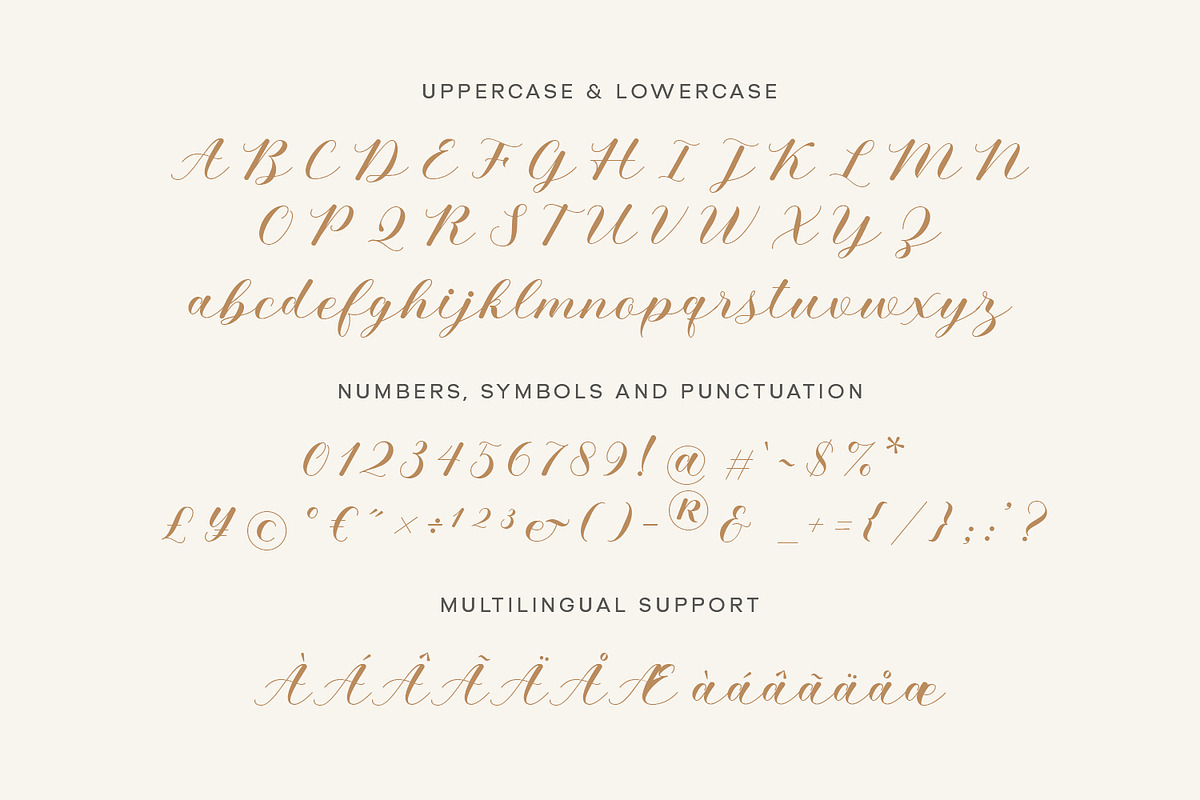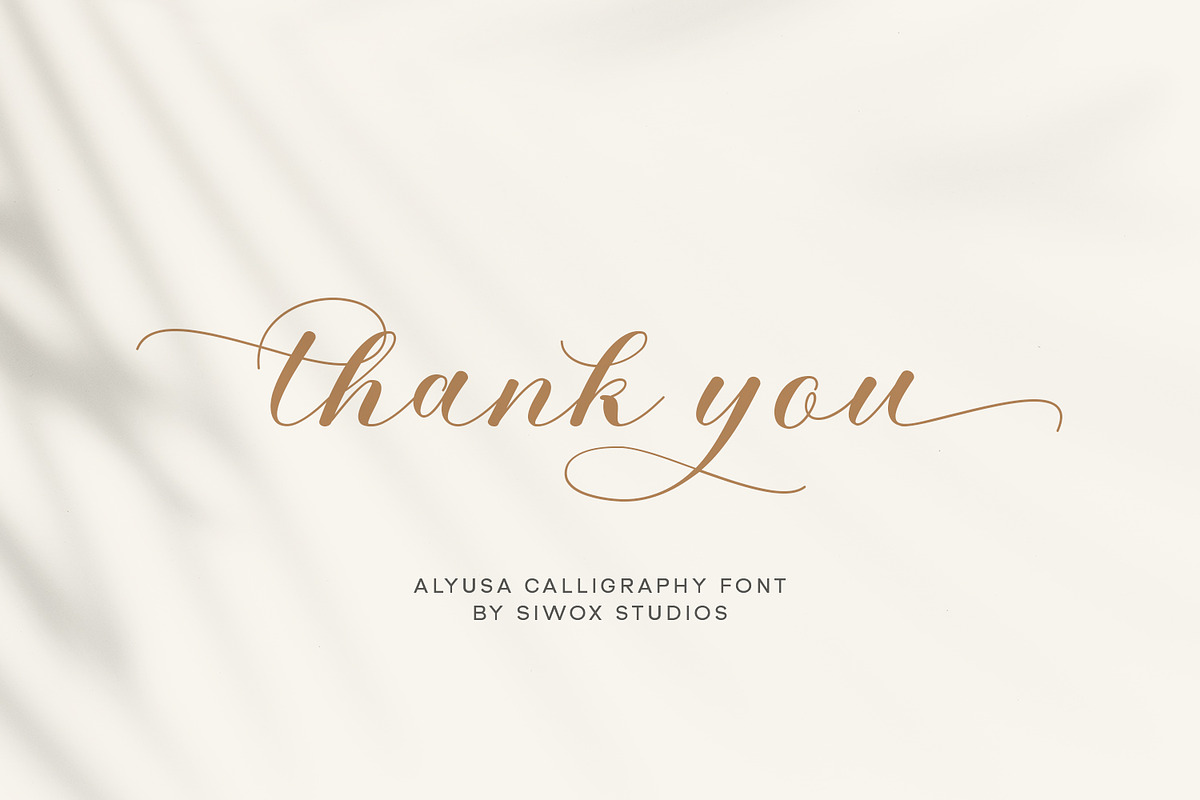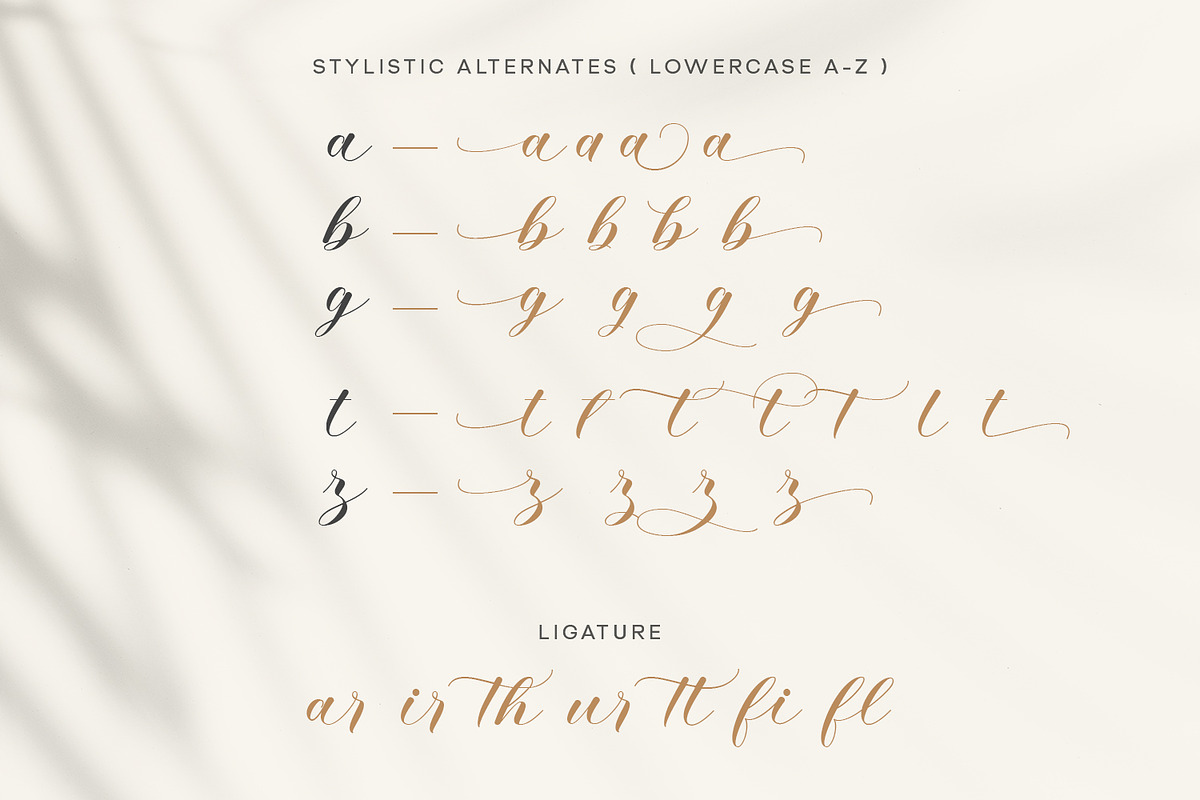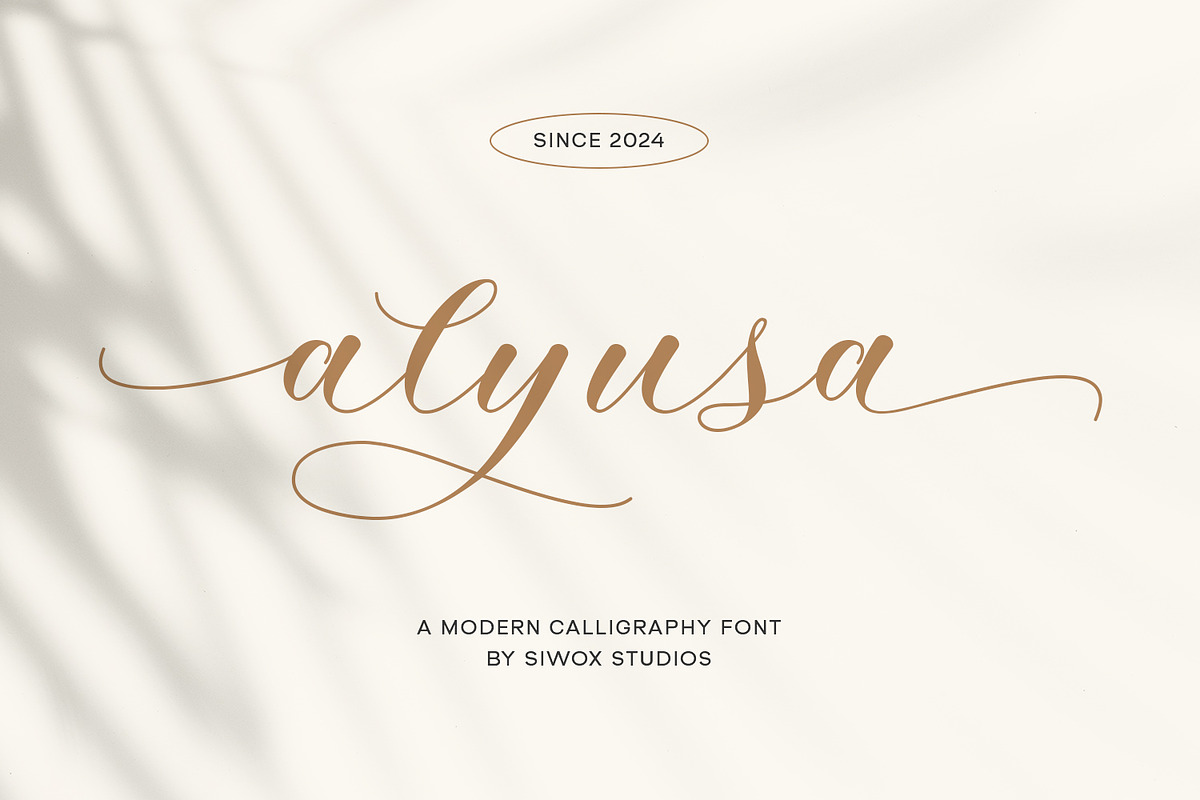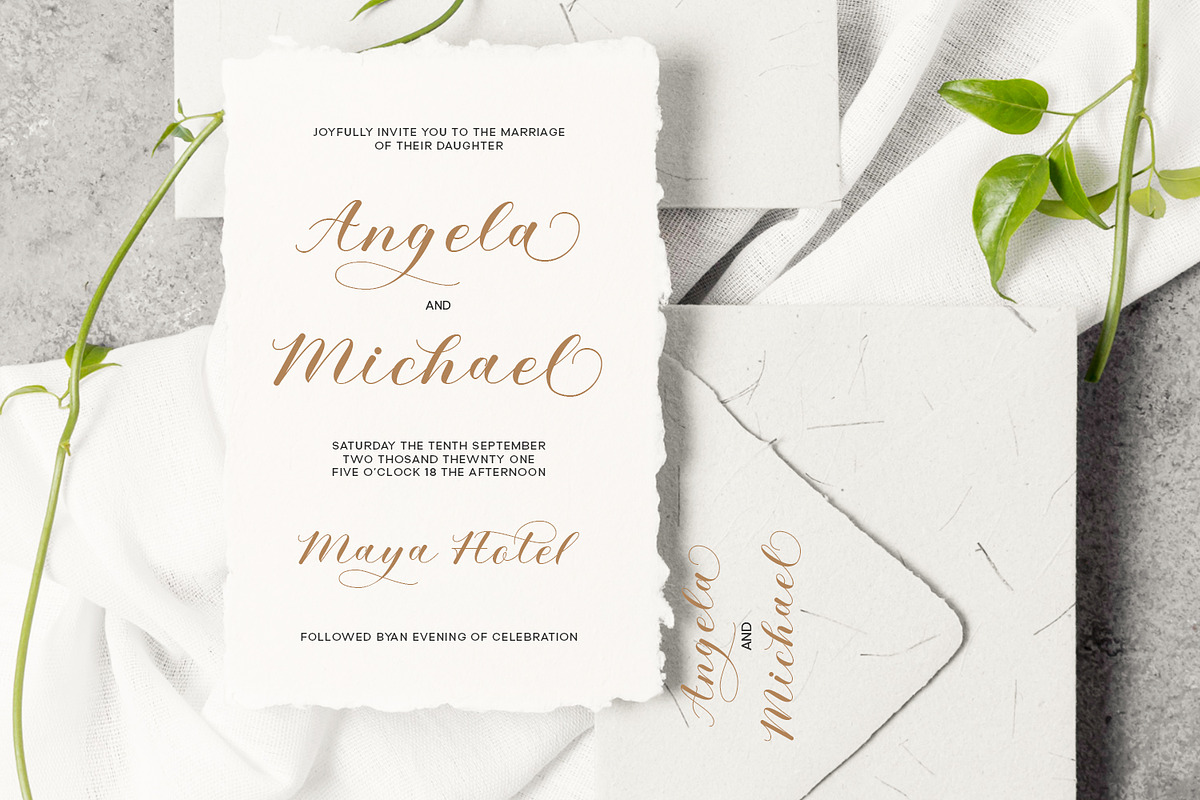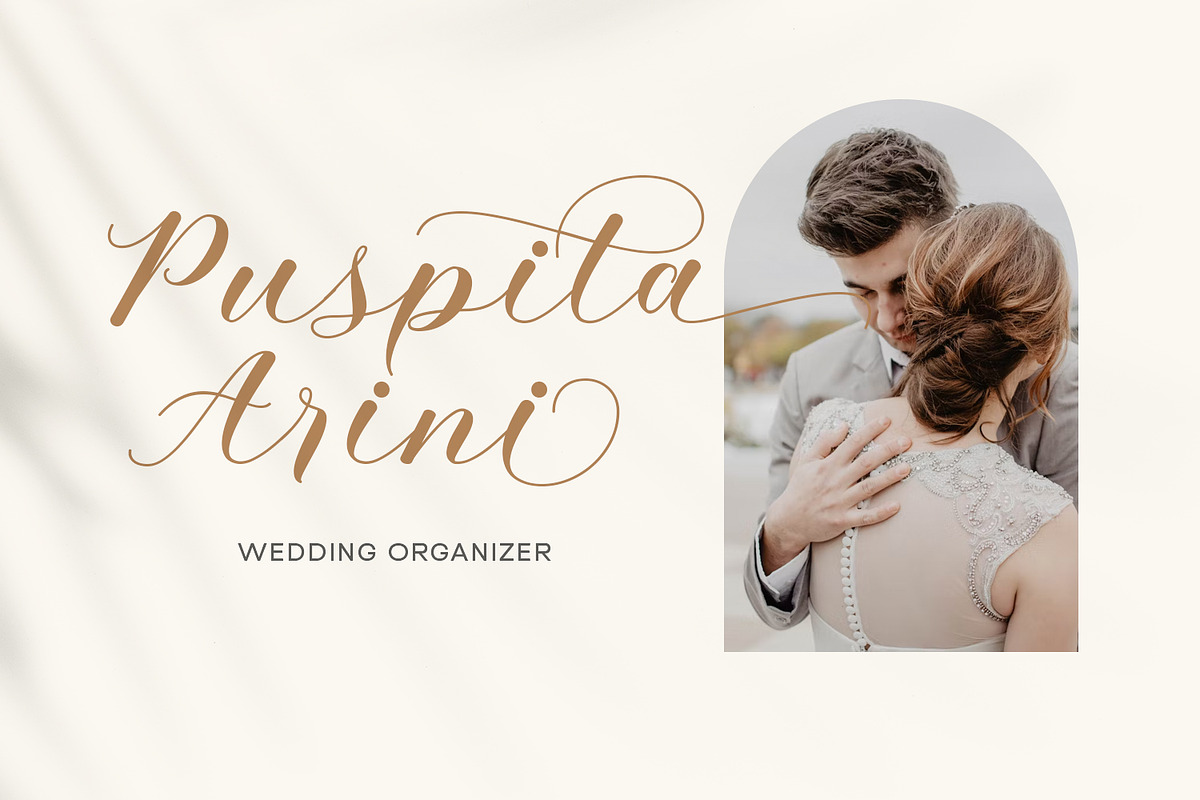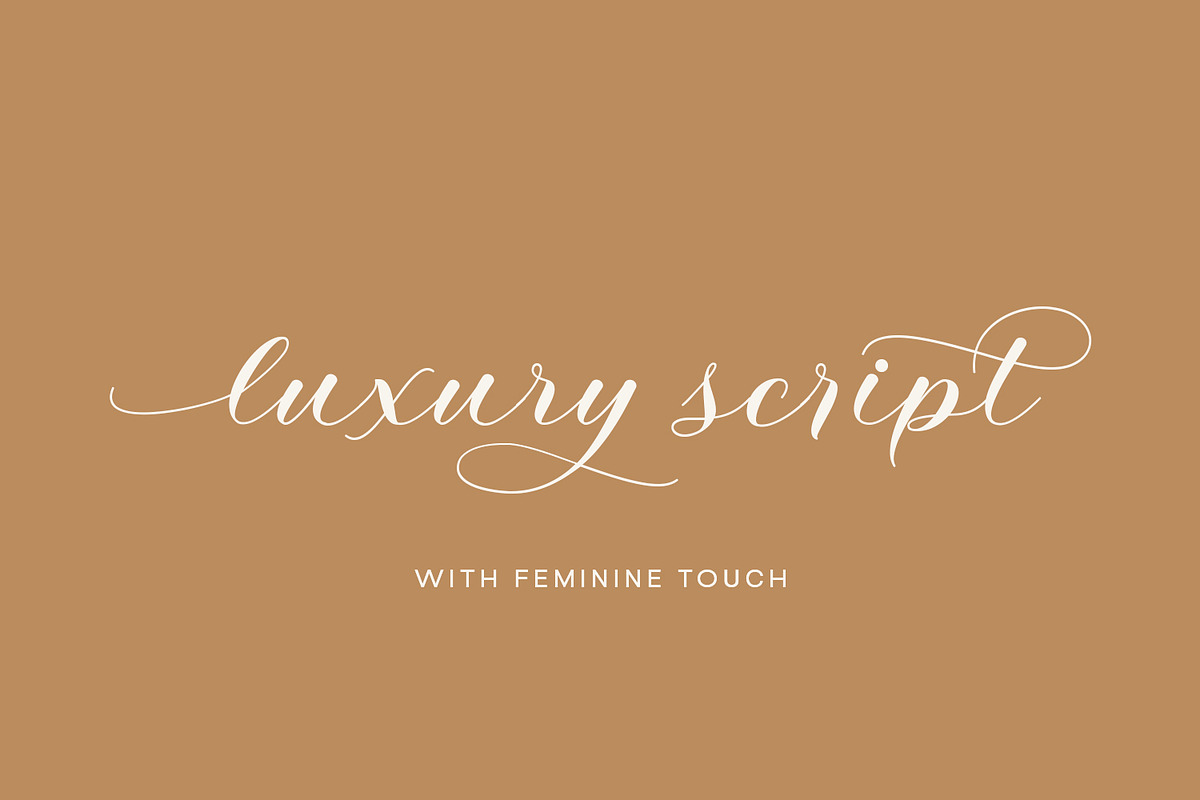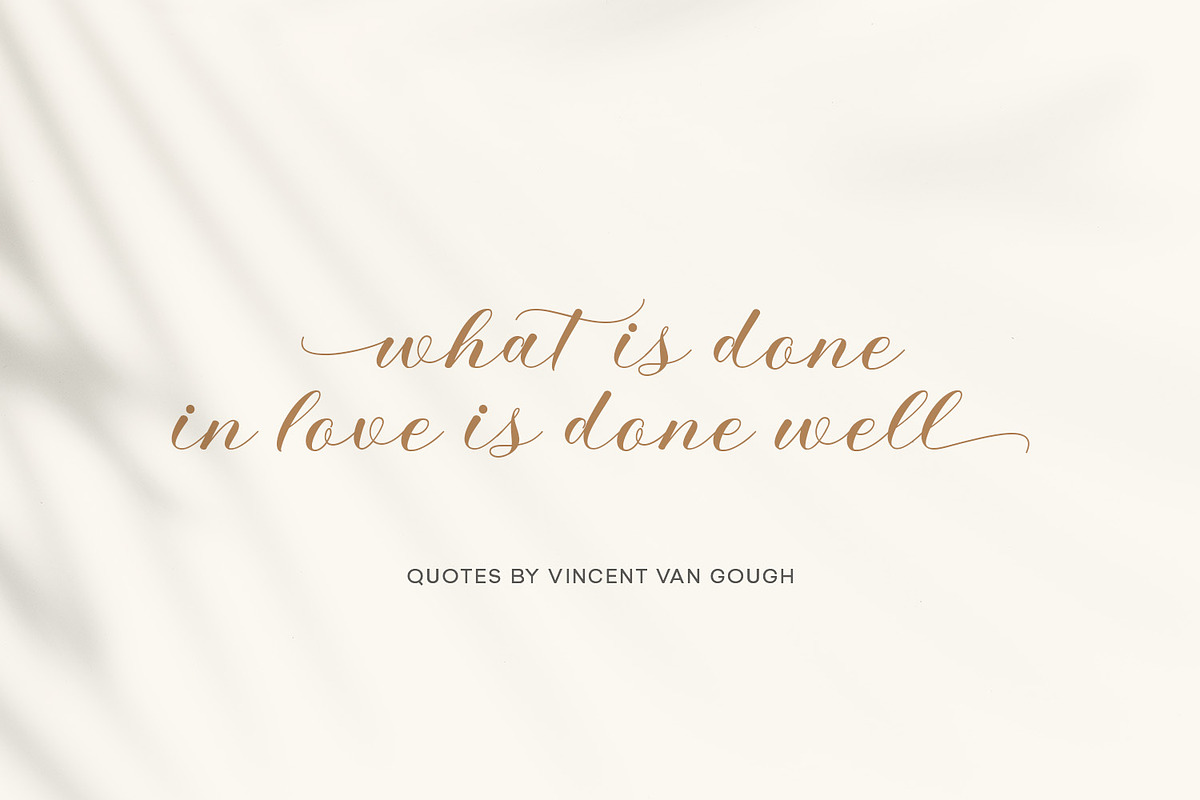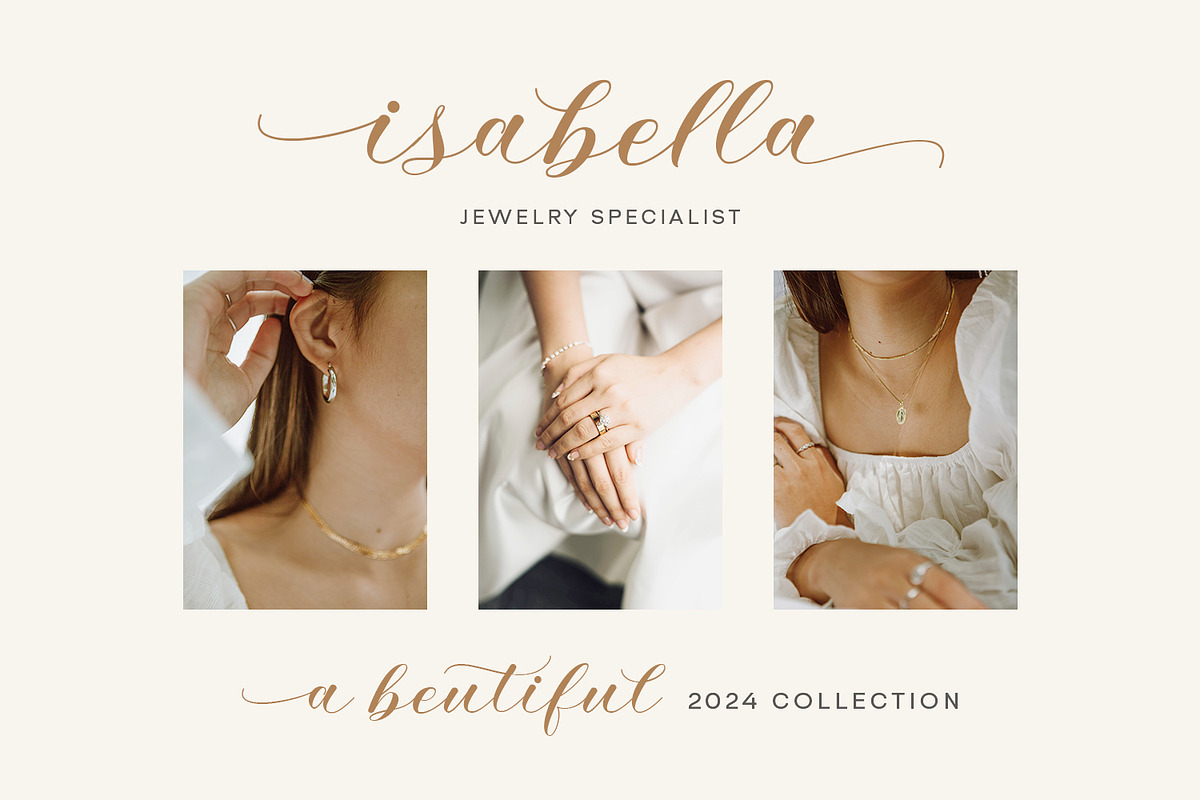
Alyusa - a modern calligraphy script
Alyusa is a beautiful and light handwritten font with a unique feel and a stunning impact. It will add a luxury spark to any design project that you wish to create! This font is PUA encoded which means you can access all of the amazing glyphs and ligatures with ease!